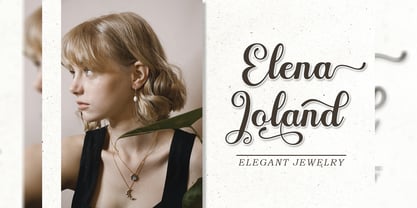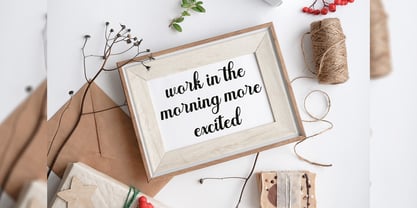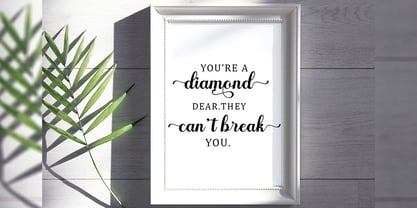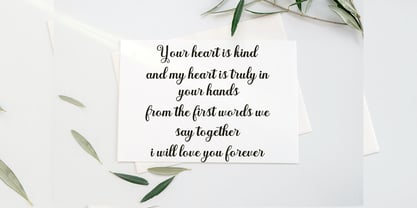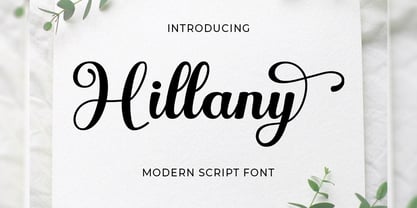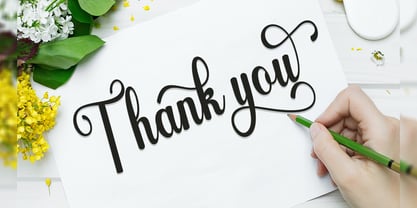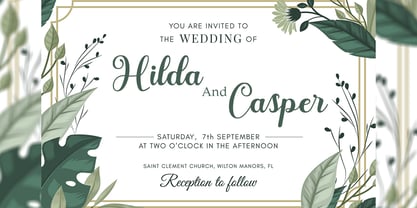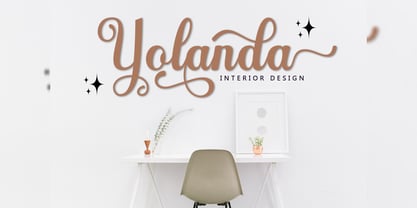
Hillany Script
by Naiza Studio
The Hillany Script Font Family was designed by Ata Illah and published by Naiza Studio. Hillany Script contains 1 styles. More about this family
Hillany script is a modern calligraphy design including Regular. This font is casual and beautiful with swashes. Can be used for various purposes such as logos, product packaging, wedding invitations, branding, headlines, signage, labels, signatures, book covers, posters, quotes, and much more.
Designers: Ata Illah
Foundry: Naiza Studio